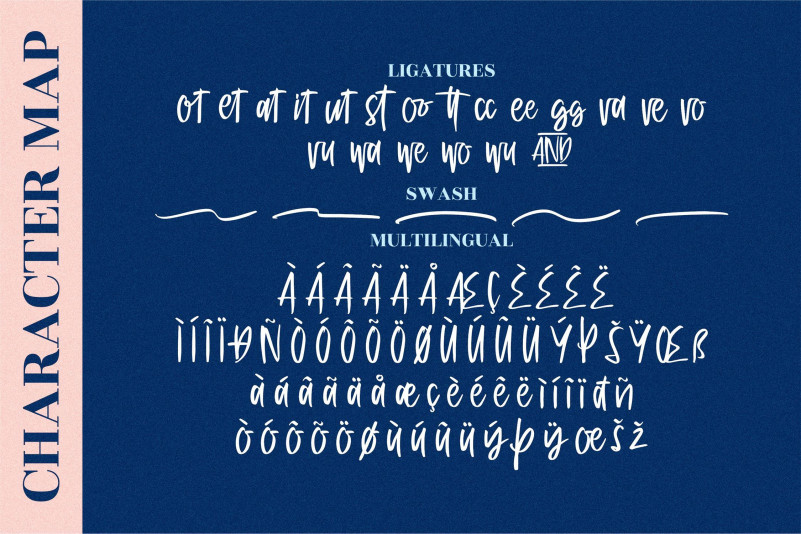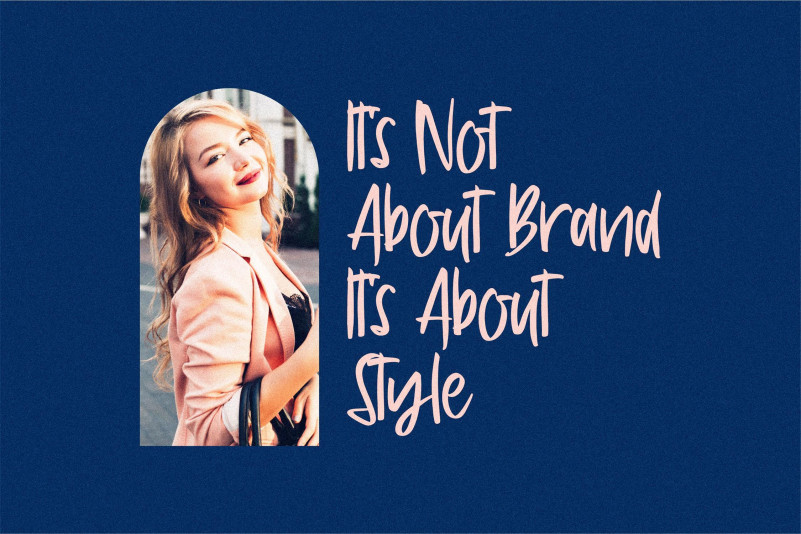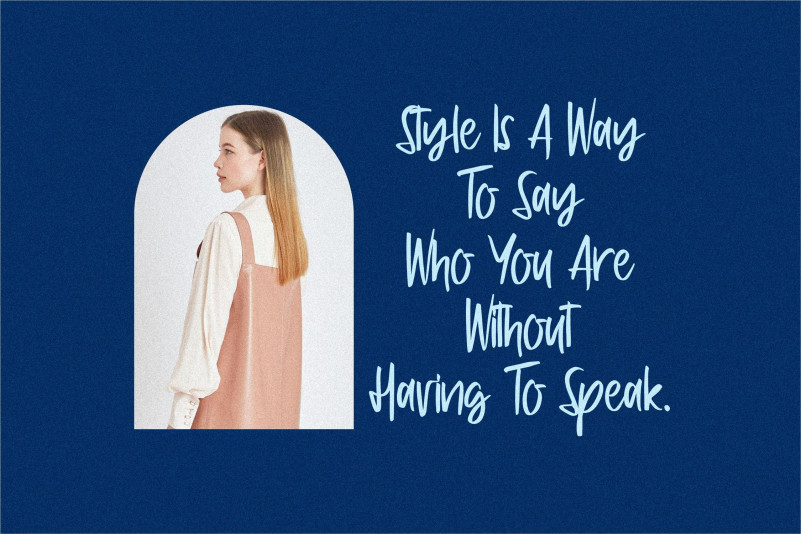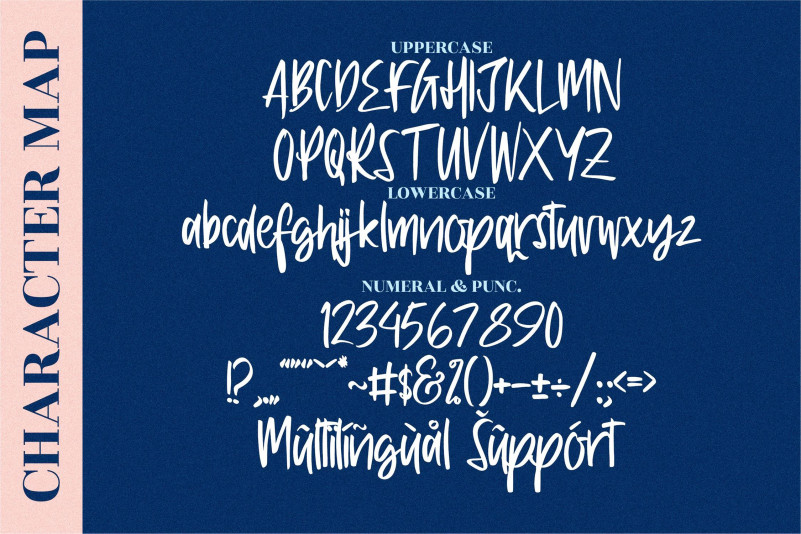
Ventta Watter Font
Ventta Watter Script Font
This is a casual and relaxed handwritten font. No matter the topic, this font will be an incredibly asset to your fonts’ library, as it has the potential to elevate any creation.